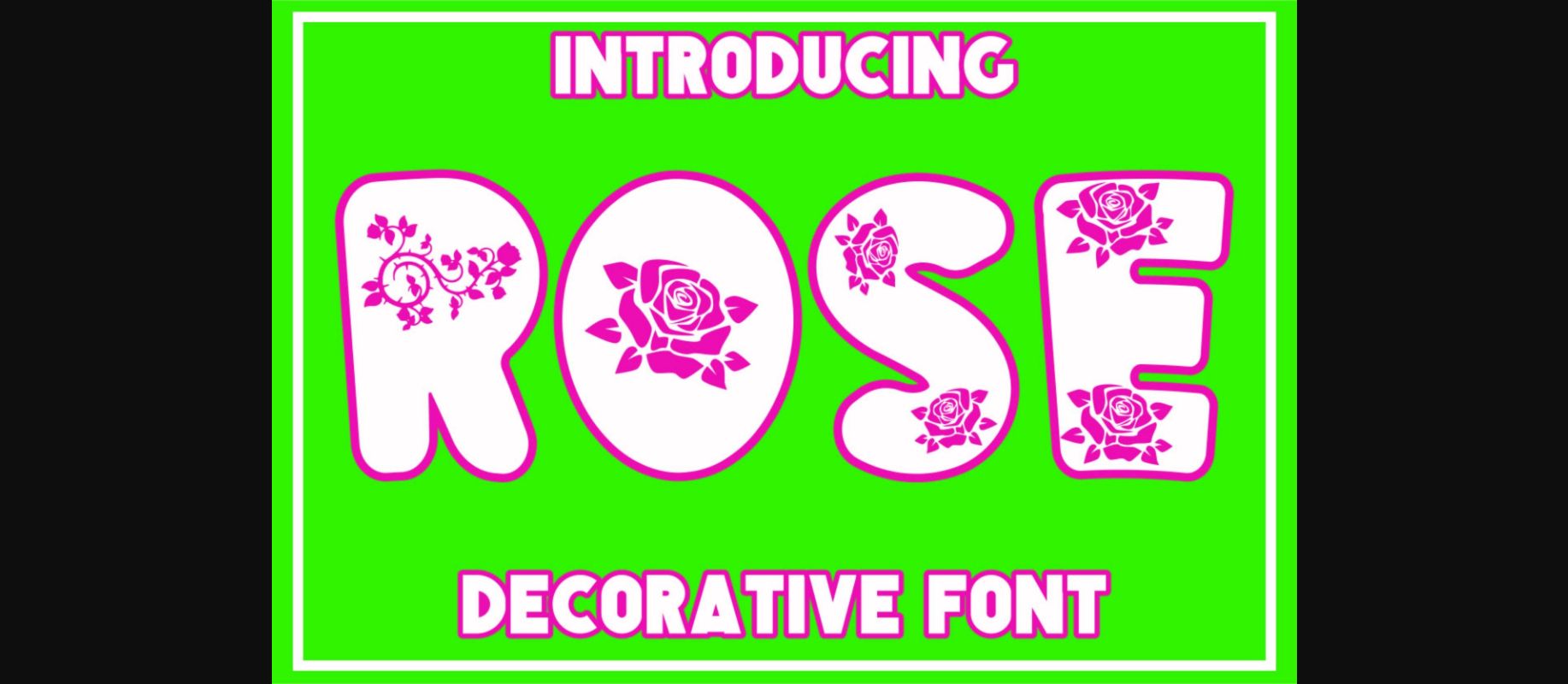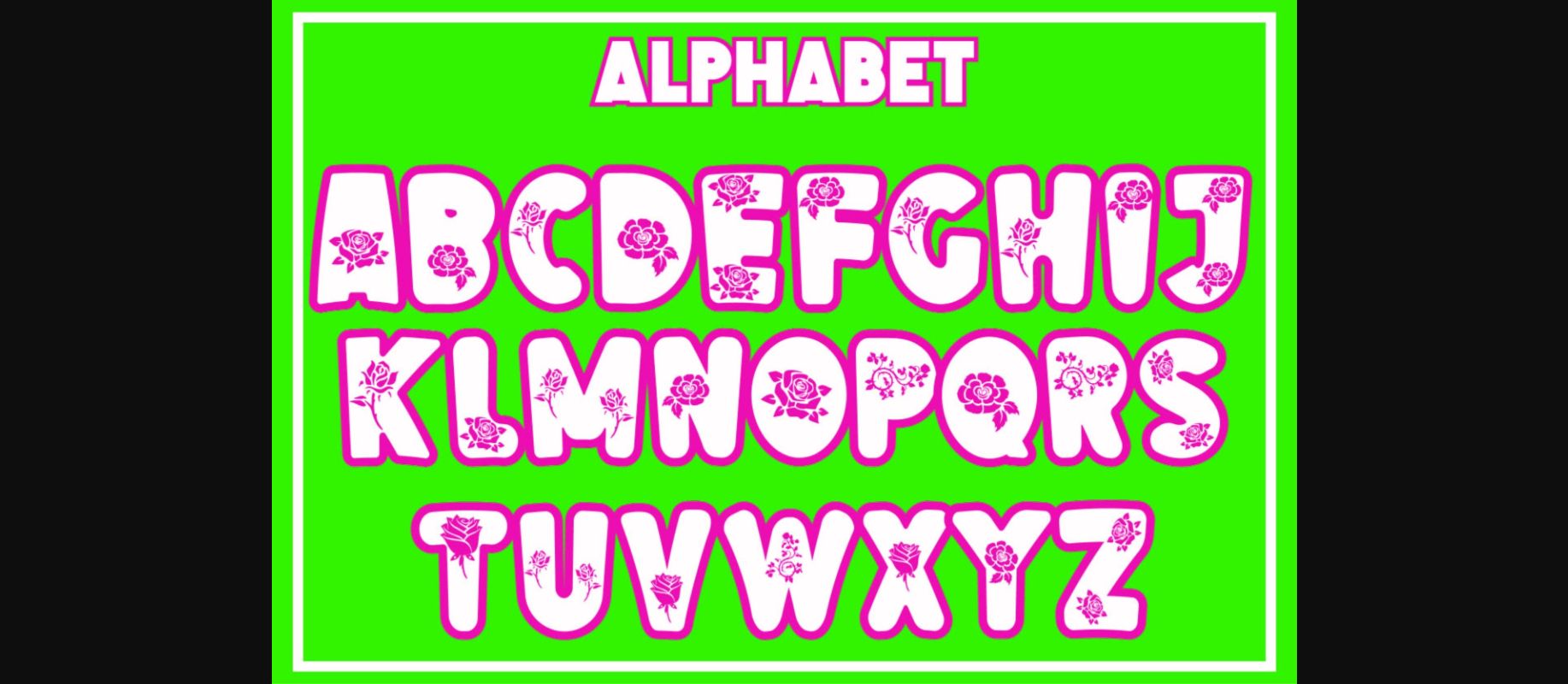
About Rose Font
Rose is a beautiful decorative font, featuring delicate flower ornaments. Fall in love with its sweet style and create stunning invitations, thank you cards, quotes, greeting cards, logos, business cards and every other design.